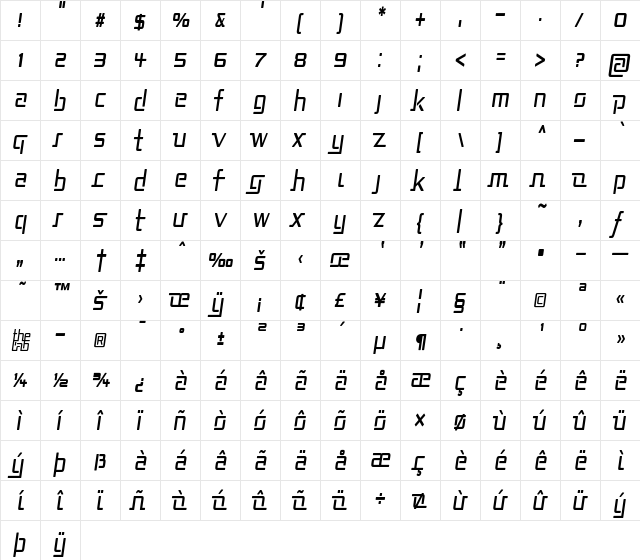
Republika II Cnd Italic
Design Context for Republika II Cnd Typeface
Republika II Cnd offers clean, dependable letterforms without strong stylistic allegiance, making it a practical choice for designers who need flexibility. The slanted form adds forward momentum and visual energy.
Pro Tip: Use Republika II Cnd for emphasis, pull quotes, and subheadings where its slanted energy can add rhythm to the layout.